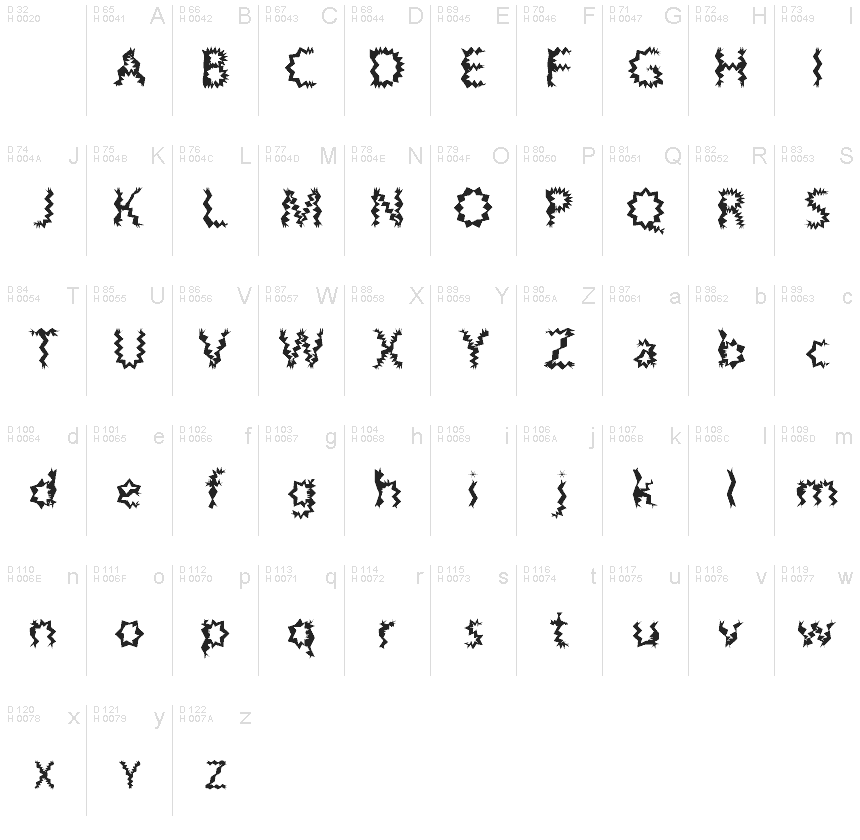
Static
Static font is a display font designed by Dillan Shrijverx who prioritized sharp and angular lines for a chaotic energy. The decorative font carries an edgy look with which it easily imposes itself on [ casual greeting cards ] or [ invitation designs ]. Its bold graphic presence is complemented with its unique unconventional display, making any project that uses it wonderfully stand out.
Make the best out of Static by implementing and combining its characters in the design of music album covers, posters for movies and live concerts or party clubs, logo creations, social media visuals headlines, business cards, magazines titles or even mobile/desktop application projects.